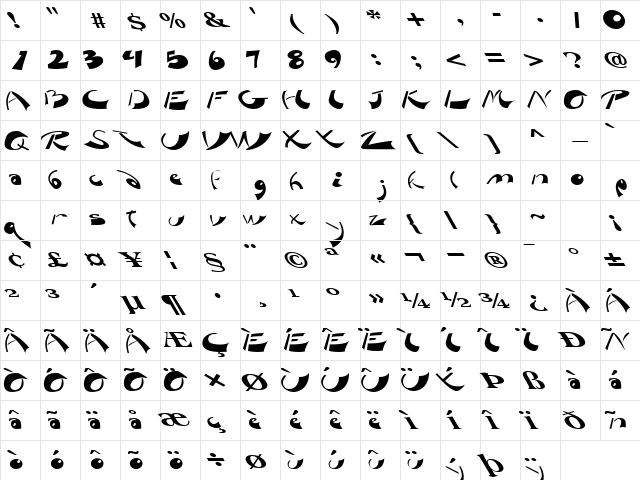
Fara Regular
Design Context for Fara Typeface
Fara is a composed and adaptable typeface that performs quietly and consistently across a wide range of design contexts.